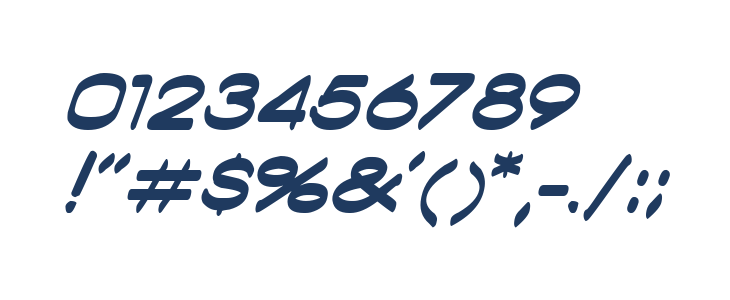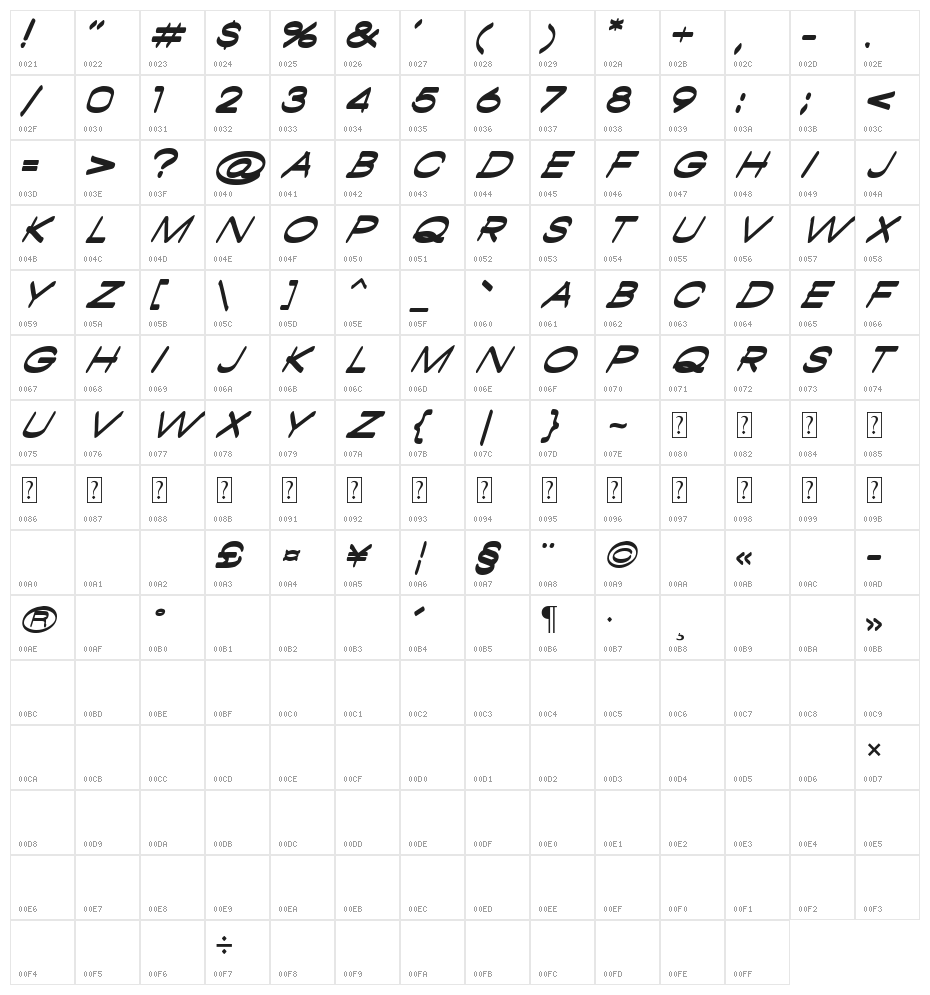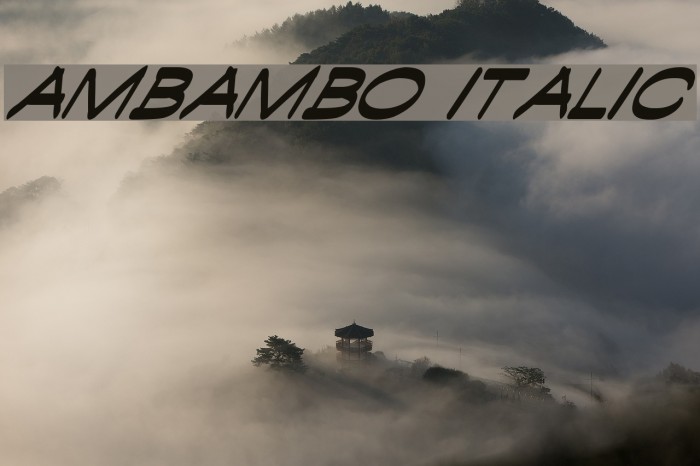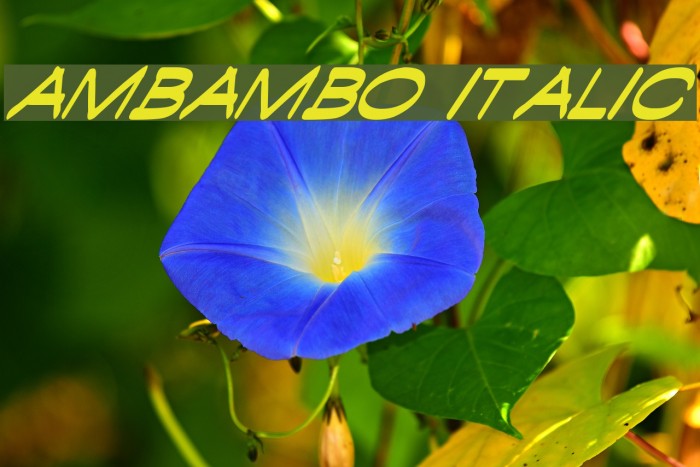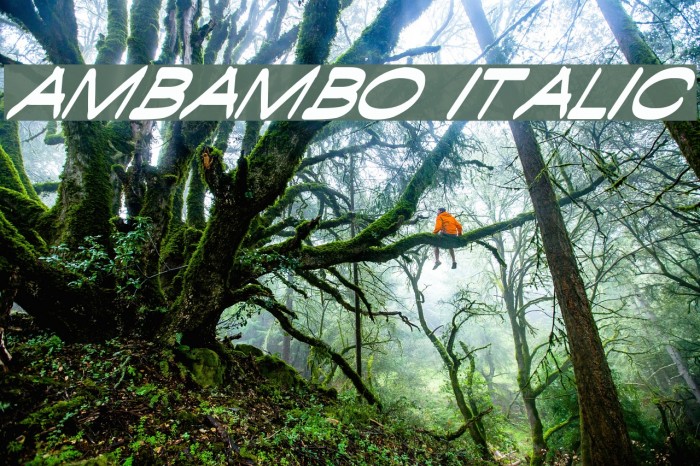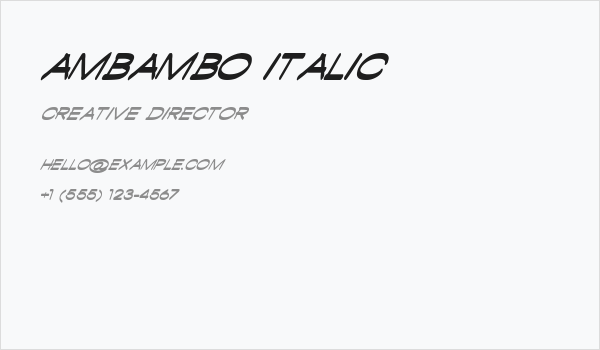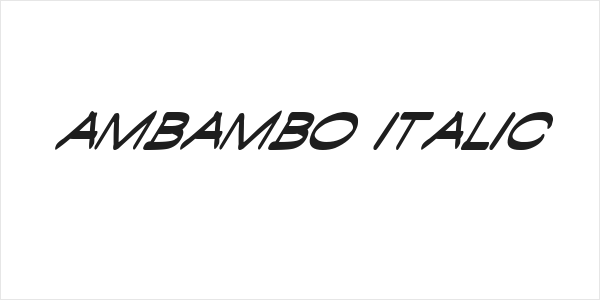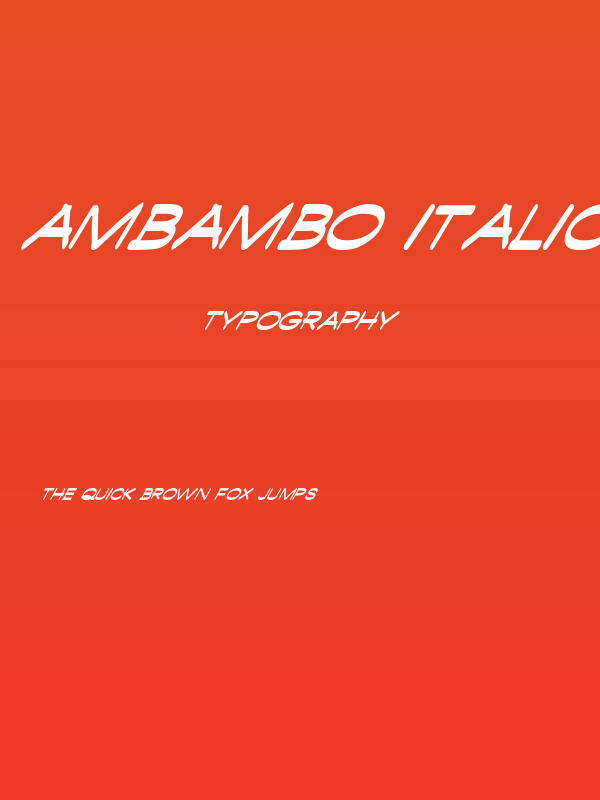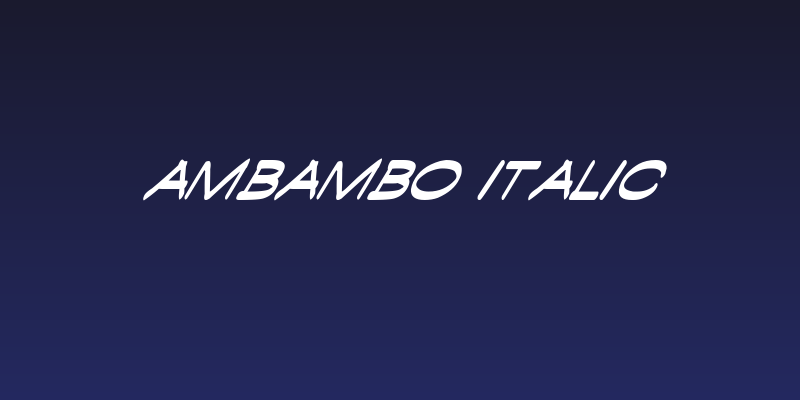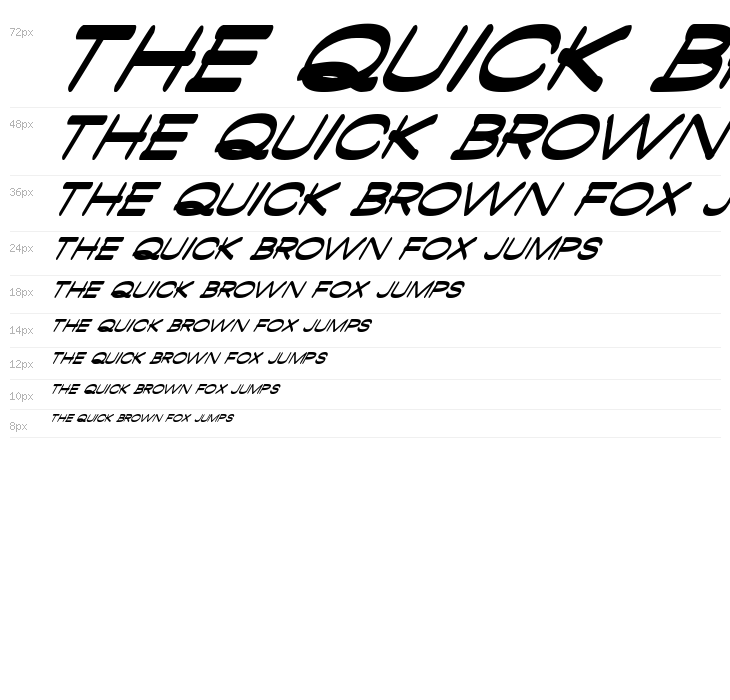
Ambambo Italic Font
Ambambo Italic Description
This font exhibits a dynamic and modern italic style, characterized by its slanted and fluid letterforms. The strokes are smooth and continuous, giving it a sense of motion and elegance. The uppercase and lowercase letters maintain a consistent slant, enhancing the font's cohesive appearance. Numbers and special characters are designed with the same italicized flair, ensuring uniformity across all glyphs. The font's overall aesthetic is sleek and contemporary, making it suitable for projects that require a touch of sophistication and style.
| Proposed Projects | Ideal for branding, advertising, and editorial design where a modern and stylish look is desired. |